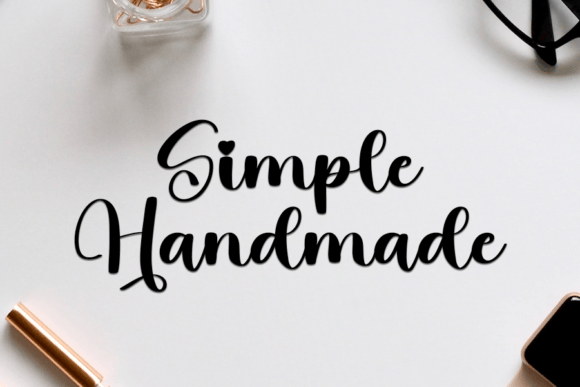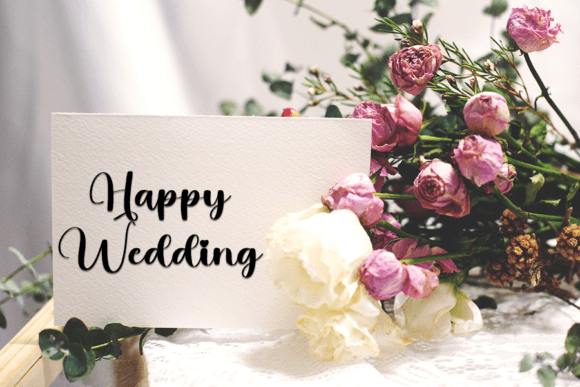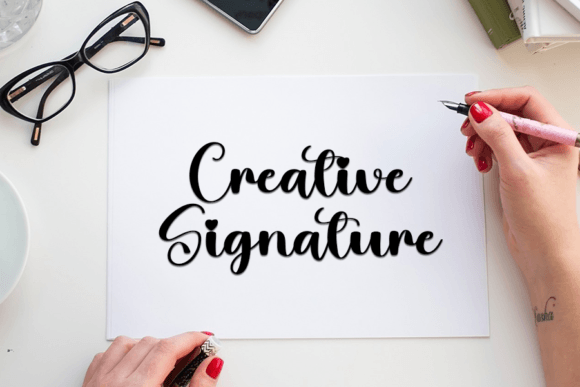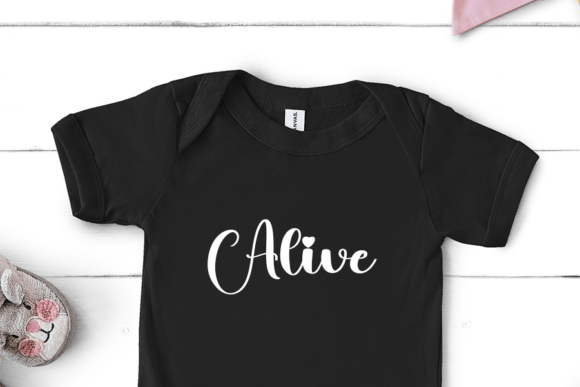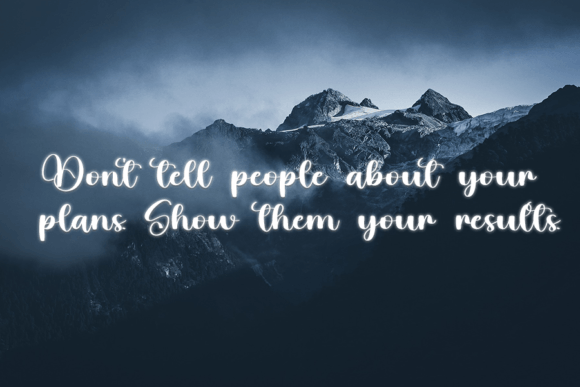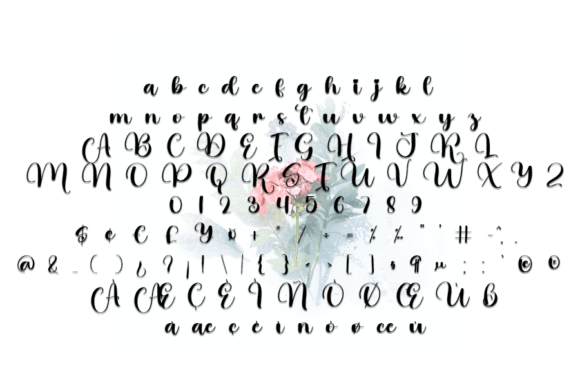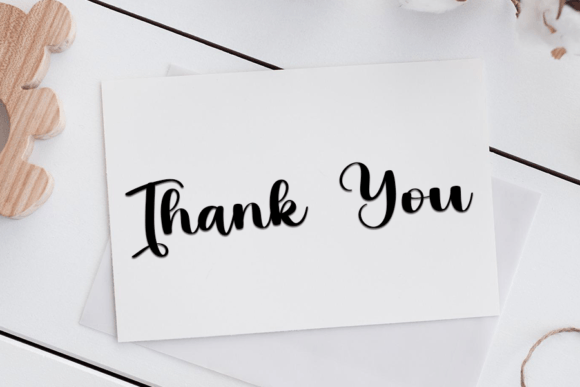
Alive Font
About Alive Font
**Infuse Your Designs with Vibrancy Using the “Alive” Handwritten Font**
Unlock a world of creative possibilities and infuse your designs with vibrancy using the “Alive” handwritten font. This carefully crafted typeface adds a unique and cool touch to your projects, making them stand out with flair and energy. Here’s how “Alive” can breathe life into your creative work:
1. **Versatile Application:** “Alive” is a versatile font suitable for a wide range of design projects. Whether you’re crafting letters, invitations, food product labels, titles, or any other visual content, this font’s distinctive style adds an extra layer of personality.
2. **Cool and Unique:** “Alive” brings a cool and unique quality to your text that sets it apart from standard fonts. It captures attention and conveys a sense of originality.
3. **Vibrant and Energetic:** The font’s handwritten aesthetics exude a vibrant and energetic vibe. It adds dynamism and excitement to your designs, making them more engaging.
4. **Expressive Typography:** Use “Alive” to express yourself through typography. Its lively and unconventional style enables you to communicate messages with character and flair.
5. **Memorable Impact:** The distinctive look of “Alive” ensures that your text remains memorable. Whether it’s a headline or a label, it leaves an impression.
6. **Invitations:** Craft unique and captivating invitations that entice recipients to attend your events. “Alive” adds a touch of excitement and anticipation to your invitations.
7. **Food Products:** Design labels and packaging for food products that reflect their freshness and vitality. “Alive” enhances the overall appeal and encourages customers to choose your products.
8. **Creative Titles:** Elevate the impact of your creative projects with expressive titles and headings. “Alive” gives your titles an artistic edge that resonates with your audience.
9. **Original Branding:** If your brand seeks to convey a sense of innovation, energy, or artistic expression, “Alive” can become an essential element of your branding strategy.
10. **Handcrafted Quality:** “Alive” imparts a handcrafted quality to your designs without sacrificing legibility. It combines artistic charm with readability.
Whether you’re aiming to create invitations that spark excitement, labels that showcase freshness, or titles that captivate your audience, “Alive” is the perfect choice. This handwritten font adds vibrancy and a cool, unique aesthetic to your creative projects, ensuring they come to life with energy and flair.